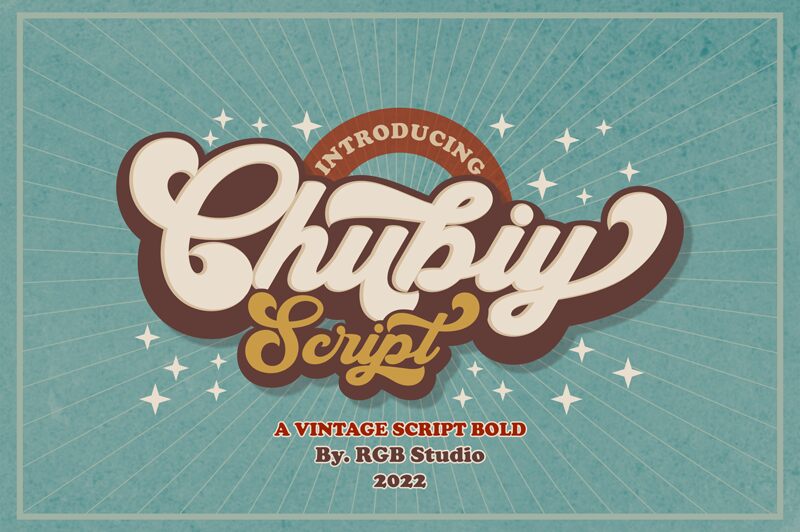
Chubiy, a retro-inspired script font crafted by RGB Studio, captivates with its bold, vintage flair. This robust typeface exudes a nostalgic charm, seamlessly blending the aesthetic of 1960s and 1970s lettering with a modern, impactful typographic style. Chubiy's distinctive brush-like strokes and confident curves emanate a sense of timeless elegance, making it a compelling choice for designers seeking to infuse their projects with a touch of retro allure.
The versatility of Chubiy shines through its versatile applications. This versatile font excels in diverse design contexts, from vintage-inspired logos and badges to impactful t-shirt designs, captivating posters, and evocative branding. Chubiy's bold presence lends itself effortlessly to packaging, signage, and book covers, ensuring a striking visual impact across a wide range of creative endeavors.
Chubiy